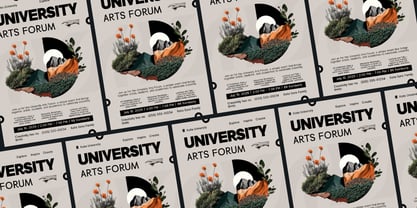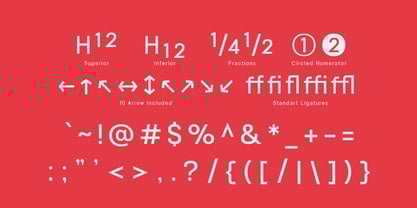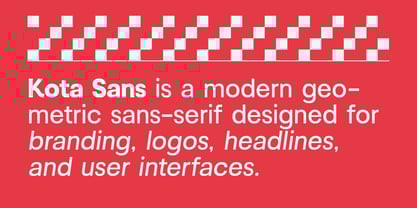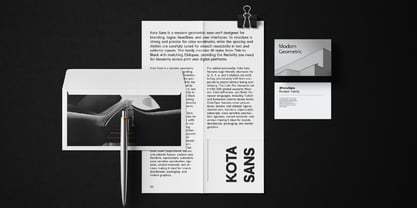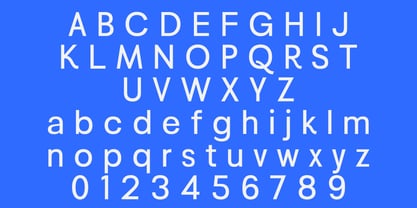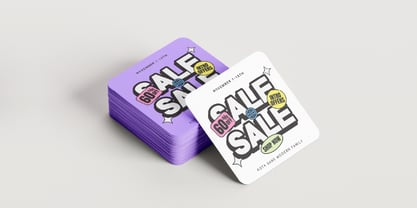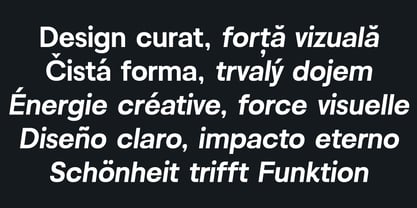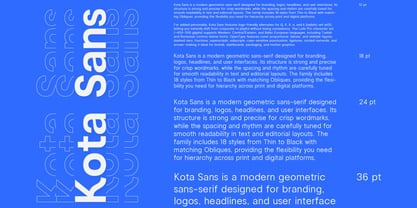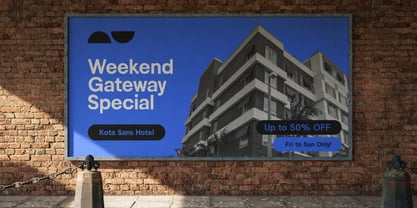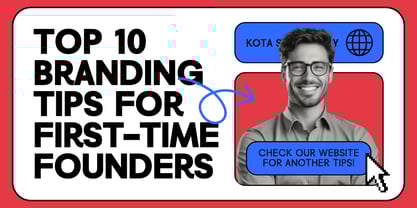
Kota Sans
by Lettertype Studio
The Kota Sans Font Family was designed by Diki Pradipta Tri Atmojo and published by Lettertype Studio. Kota Sans contains 18 styles. More about this family
Kota Sans is a modern geometric sans-serif designed for branding, logos, headlines, and user interfaces. Its structure is strong and precise for crisp wordmarks, while the spacing and rhythm are carefully tuned for smooth readability in text and editorial layouts. The family includes 18 styles from Thin to Black with matching Obliques, providing the flexibility you need for hierarchy across print and digital platforms.
For added personality, Kota Sans features logo-friendly alternates for Q, K, R, a, and k (stylistic set ss01), letting you instantly shift from corporate to playful without losing consistency. The Latin Pro character set (~450–500 glyphs) supports Western, Central/Eastern, and Baltic European languages, including Turkish and Romanian comma-below forms. OpenType features cover proportional, tabular, and oldstyle figures, slashed zero, fractions, superscripts, subscripts, case-sensitive punctuation, ligatures, circled numerals, and arrows—making it ideal for brands, dashboards, packaging, and motion graphics.